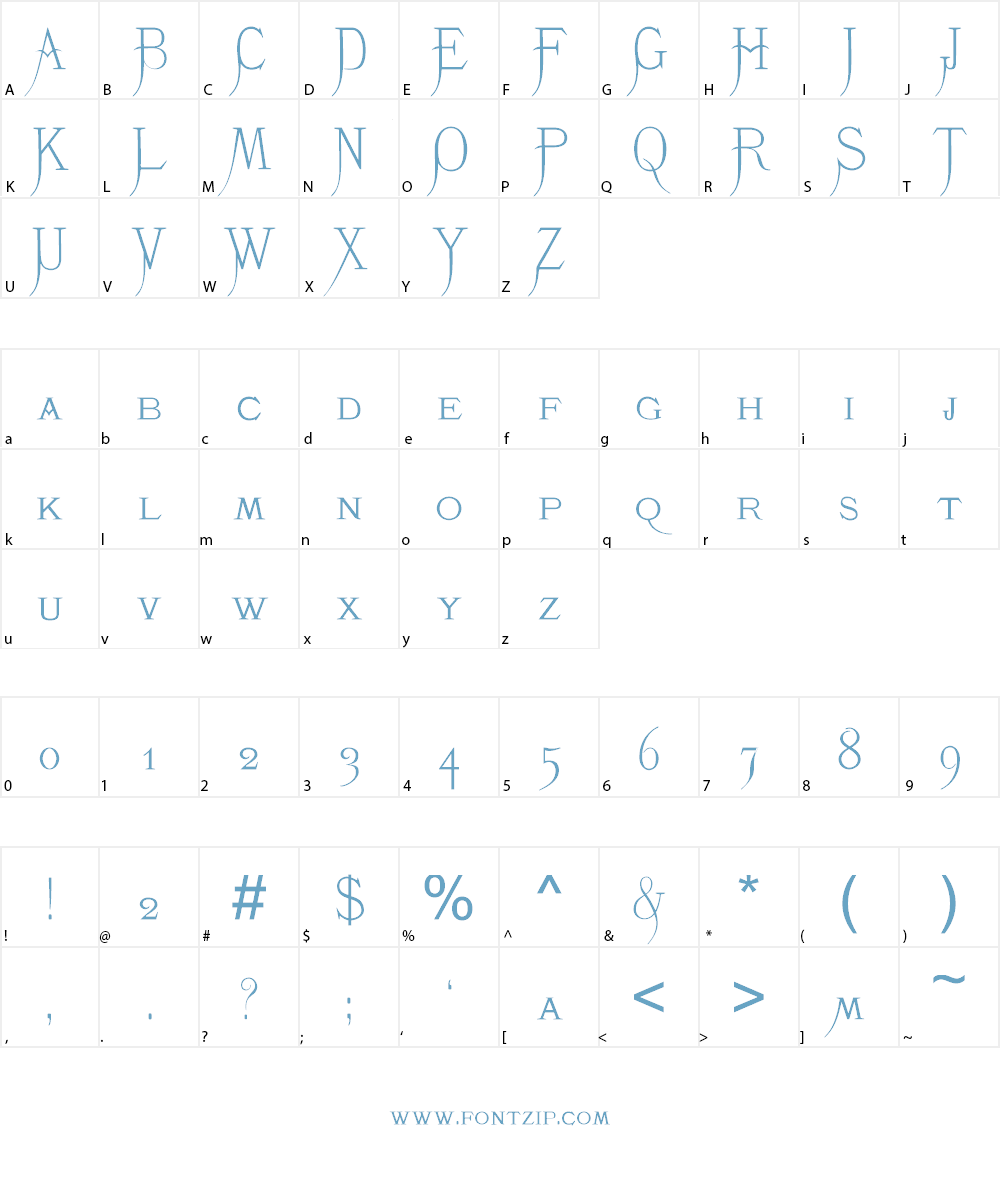
K22 Monastic is based on Monastic from Victorian Display Alphabets by Dan X. Solo. The font contains alternate characters for a, m and r found in the [. ] and { characters, respectively. There are some lowercase cyrillic characters (small caps). The font is available in Open Type, True Type and Windows Type 1.